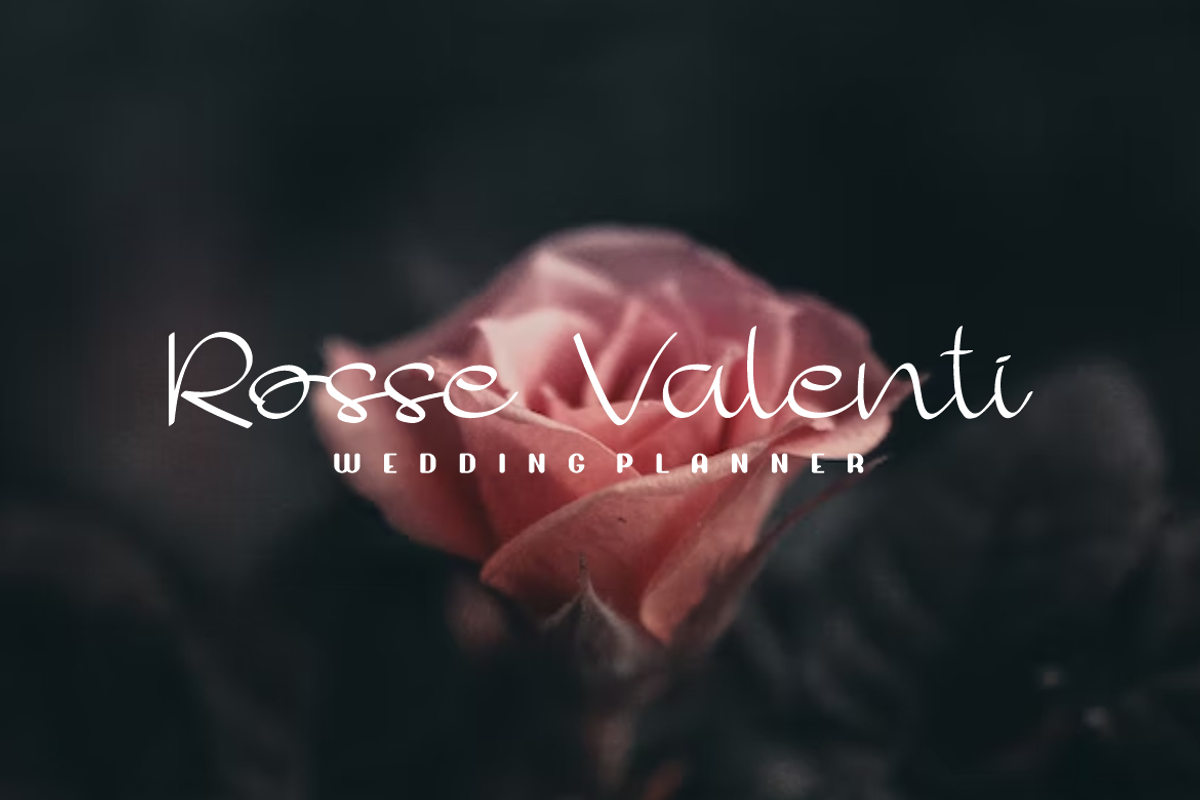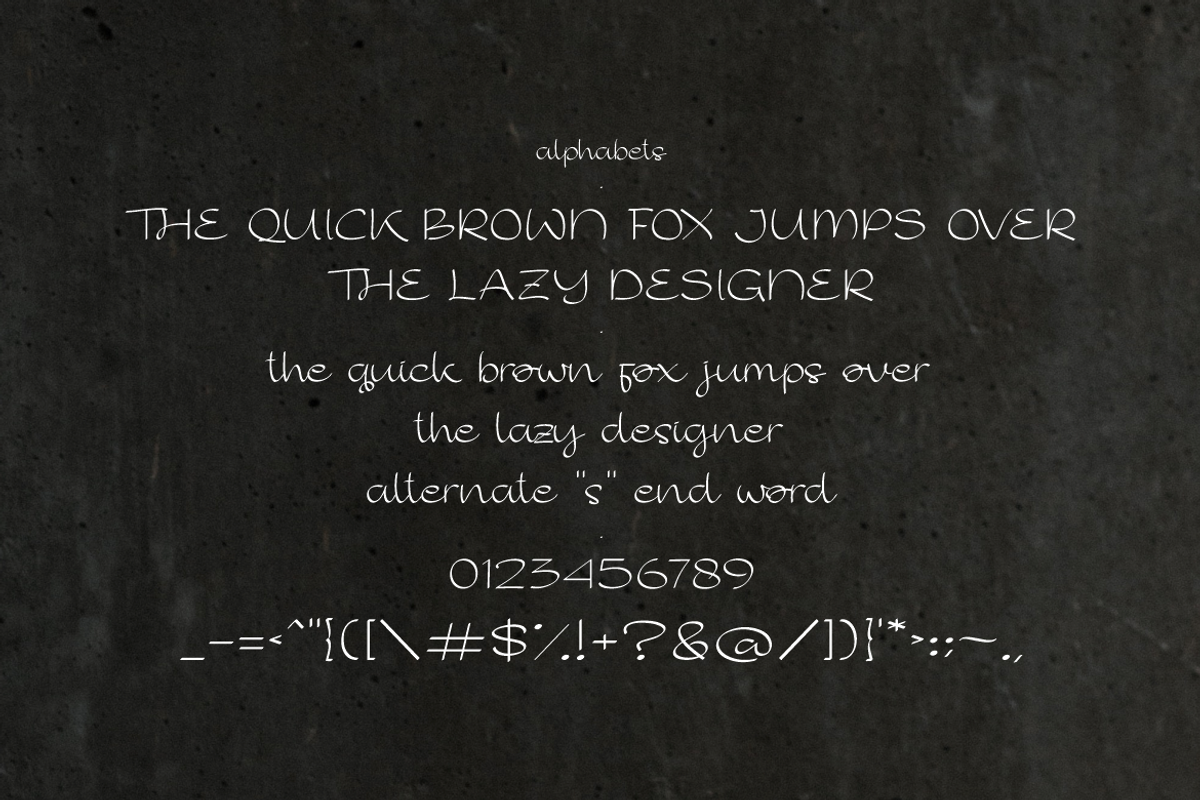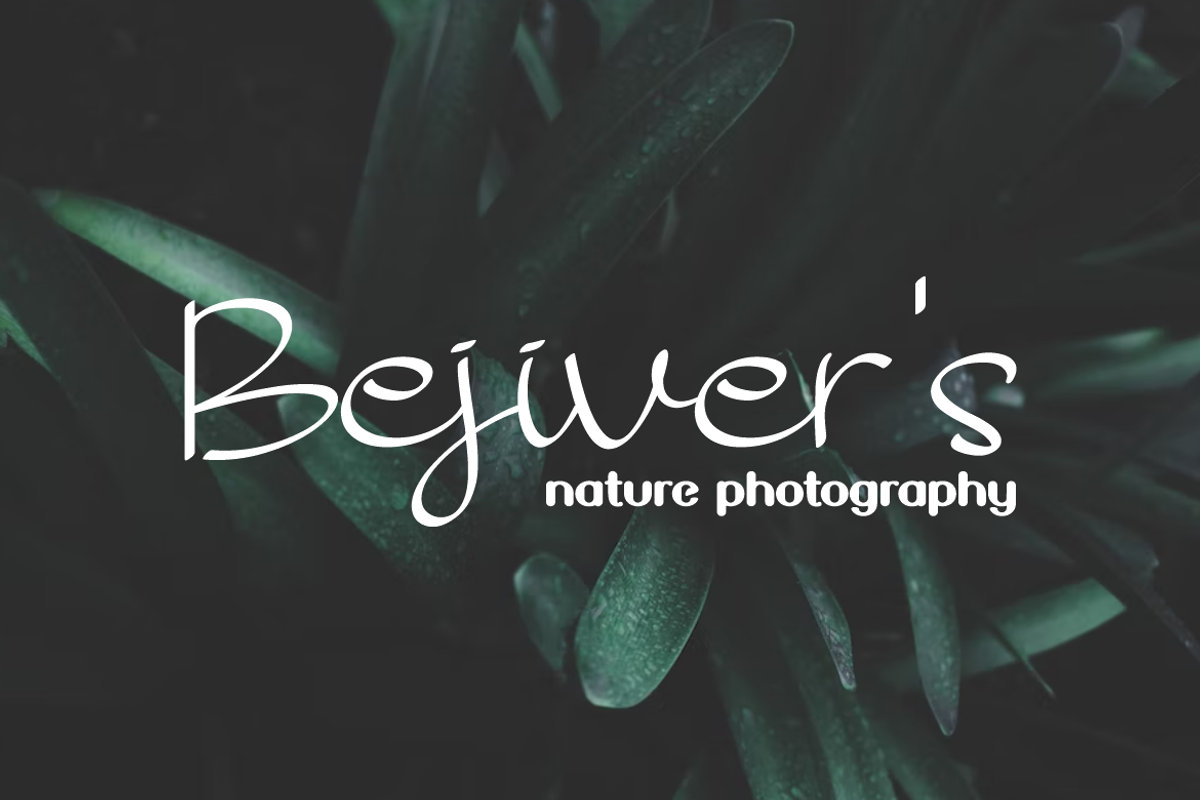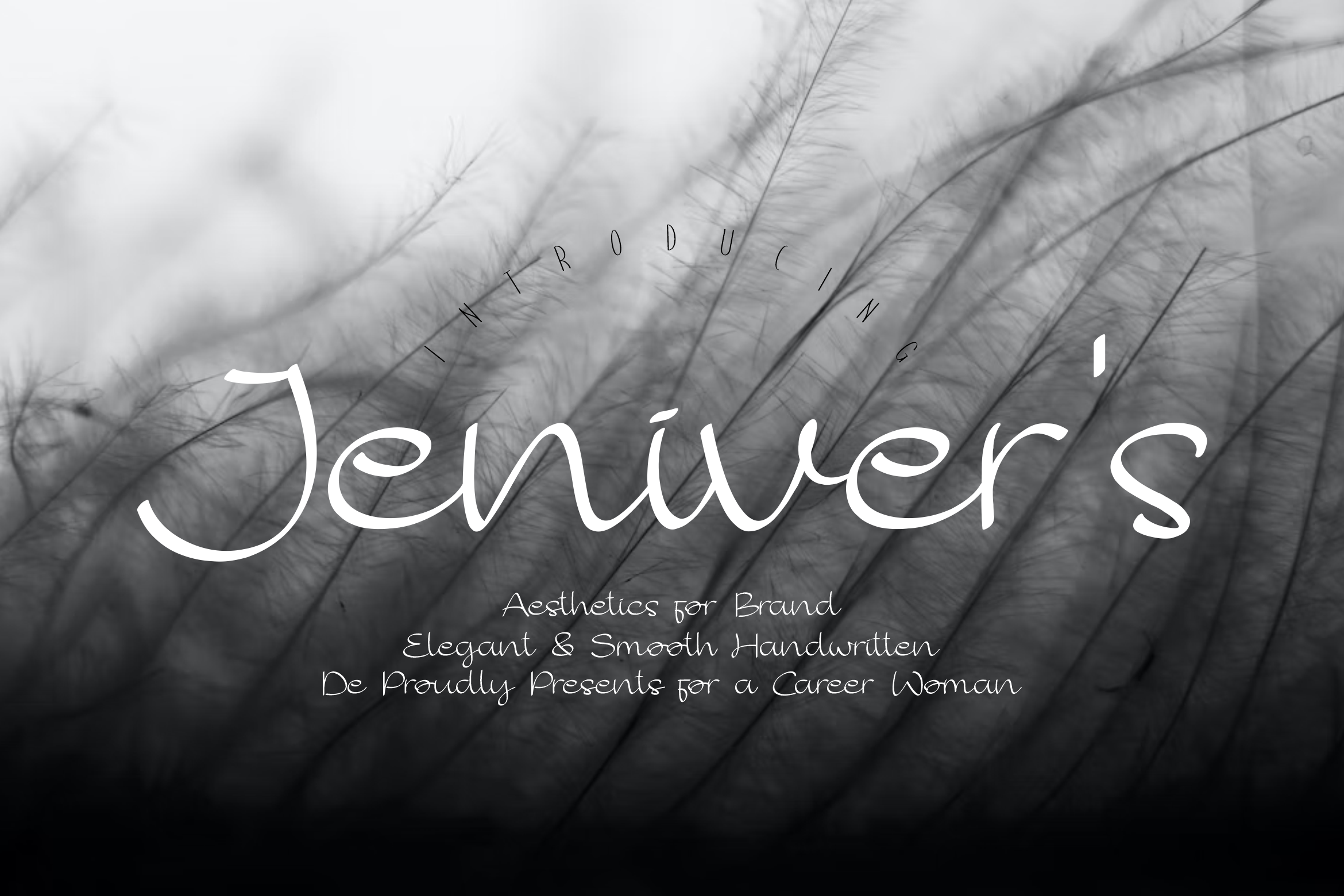
Jenivers Font
Jenivers Font It has a elegant, classy look and modern. It’s a great font for fashion, apparel projects, signature, album cover,logo, branding, magazine, social media, & advertisements, but also works great for other projects.